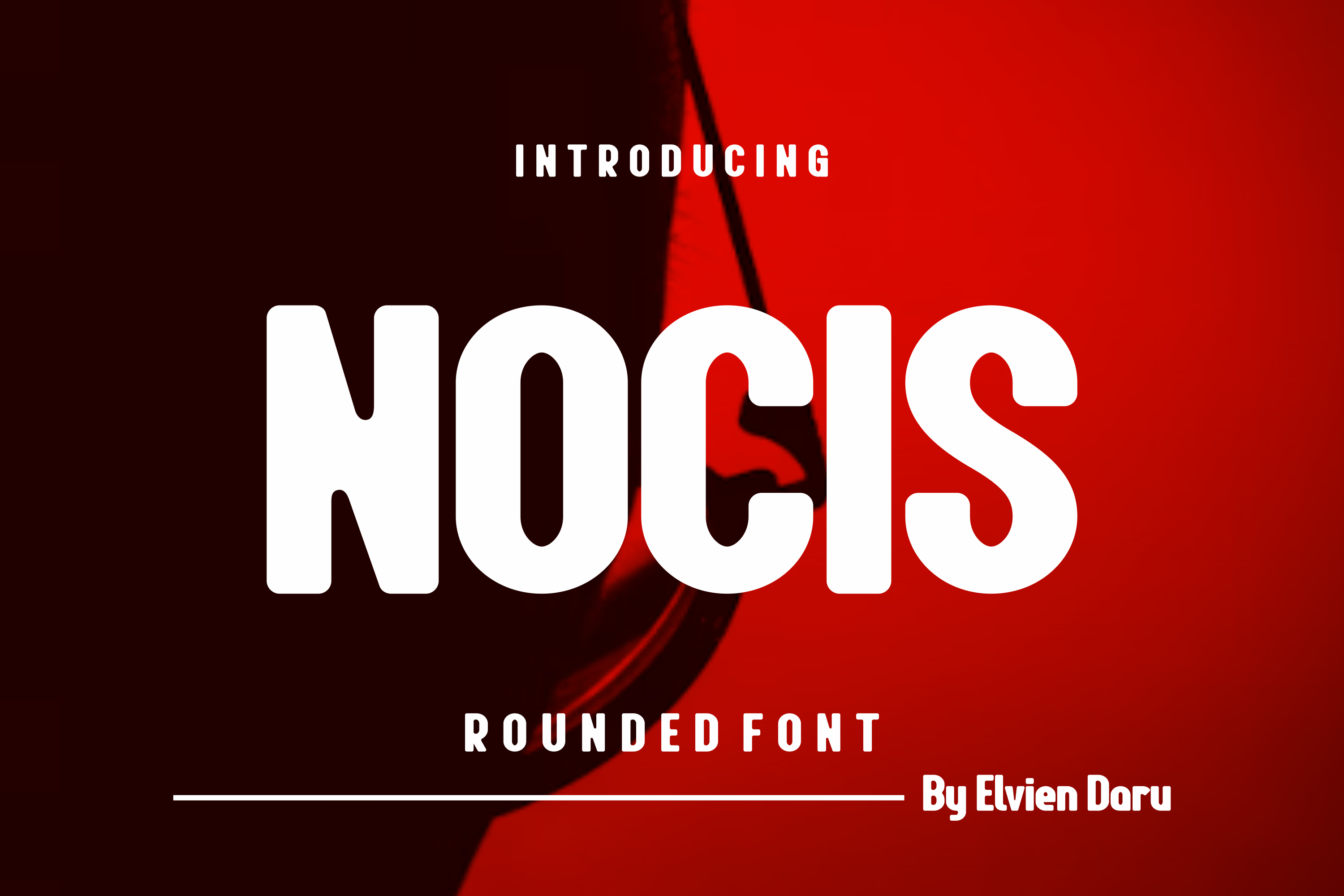
Nocis - Rounded Font
Nocis - Rounded Font Perfectly suited on print/screen. it’s perfect for Branding, name card, poster, logo, magazine, cover, banner, t-shirt and headers, or even large-scale artwork.